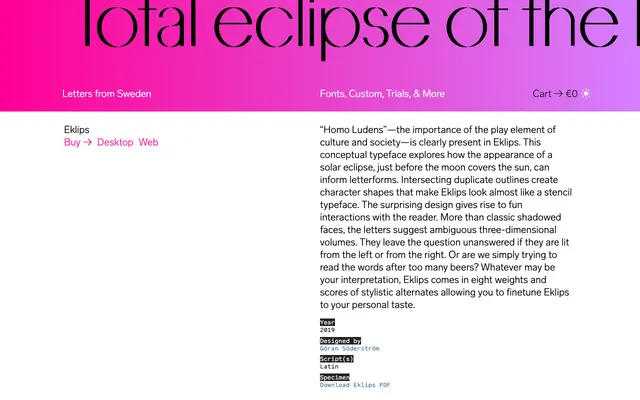
Eklips
Letters from Sweden · Göran Söderström · 2019
Eklips specimen from Letters from Sweden
A conceptual display typeface by Göran Söderström in which intersecting duplicate outlines evoke the halo of a solar eclipse, producing letterforms that appear both stencilled and ambiguously three-dimensional.
Each letter in Eklips is formed by overlapping duplicate outlines that mimic the moment just before totality in a solar eclipse, leaving the reader uncertain whether the forms are lit from left or right. The effect sits somewhere between a classic shadowed face and a stencil, generating a playful perceptual tension that rewards extended reading. Eight weights and scores of stylistic alternates give designers fine control over how far to push that ambiguity.
Eklips is a display typeface built around a solar eclipse motif, where intersecting duplicate outlines create ambiguous, stencil-like letterforms with implied three-dimensional volume. Its purely conceptual premise and decorative construction place it firmly in the display category.